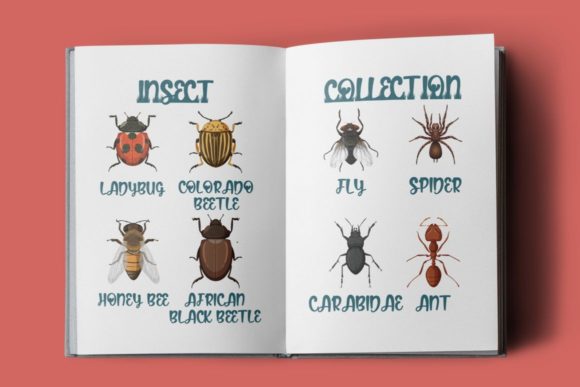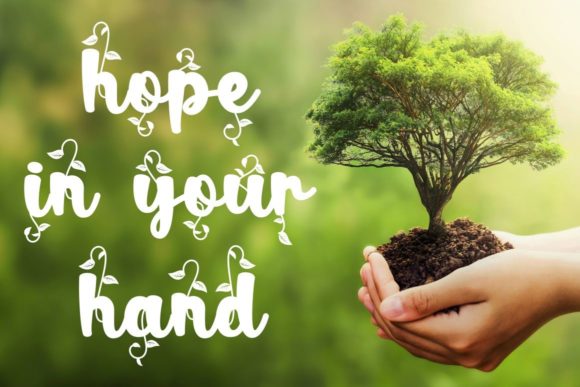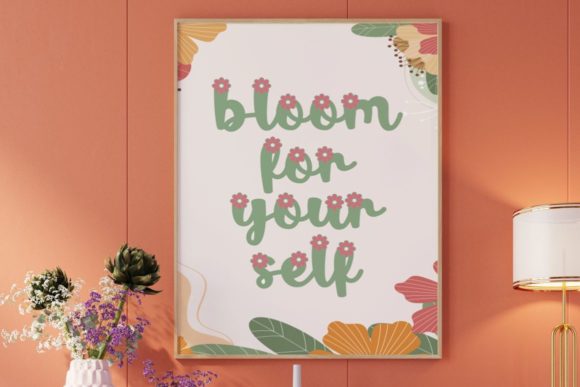
Introducing Fresh Spring Font: Elevate Your Designs with a Trendy and Chic Display Font
As the seasons change and spring arrives, it’s the perfect time to refresh your design library with a font that’s as vibrant and energetic as the season itself. Look no further than Fresh Spring Font, a stylish and modern display font that’s sure to become a staple in your collection. In this article, we’ll dive into the features and benefits of Fresh Spring Font, and explore how it can enhance your designs and take your creativity to the next level.
A Fresh Perspective on Display Fonts
Fresh Spring Font is a trendy and chic display font that’s designed to make a statement. Its unique and modern aesthetic is perfect for a wide range of design projects, from branding and advertising to packaging and digital media. With its clean lines, elegant curves, and sophisticated style, Fresh Spring Font is sure to capture the attention of your audience and leave a lasting impression.
One of the standout features of Fresh Spring Font is its versatility. Whether you’re designing a logo, headline, or social media graphic, this font is adaptable and easy to use. Its range of weights and styles makes it perfect for creating visual hierarchies and adding emphasis to your text, allowing you to experiment with different layouts and compositions.
Why Fresh Spring Font is a Must-Have for Designers
So, what sets Fresh Spring Font apart from other display fonts on the market? Here are just a few reasons why it’s a must-have for designers and crafters:
- Unique and Modern Aesthetic: Fresh Spring Font boasts a fresh and contemporary look that’s sure to make your designs stand out from the crowd.
- Highly Versatile: With its range of weights and styles, Fresh Spring Font can be used for a wide range of design projects, from elegant and sophisticated to bold and playful.
- Ease of Use: Fresh Spring Font is easy to read and works well in both digital and print formats, making it perfect for a variety of applications.
- Perfect for Branding and Advertising: With its eye-catching style and professional aesthetic, Fresh Spring Font is ideal for branding, advertising, and marketing materials.
How to Use Fresh Spring Font in Your Designs
Now that we’ve covered the features and benefits of Fresh Spring Font, let’s explore some practical ways to use it in your designs:
- Logos and Branding: Use Fresh Spring Font to create a unique and memorable logo that reflects your brand’s personality and style.
- Headlines and Titles: Add emphasis and visual interest to your headlines and titles with Fresh Spring Font’s bold and stylish aesthetic.
- Social Media Graphics: Use Fresh Spring Font to create eye-catching social media graphics that grab attention and drive engagement.
- Packaging and Product Design: Add a touch of elegance and sophistication to your packaging and product designs with Fresh Spring Font.
In conclusion, Fresh Spring Font is a trendy and chic display font that’s sure to become a valuable asset in your design library. With its unique and modern aesthetic, versatility, and ease of use, it’s perfect for a wide range of design projects. Whether you’re a designer, crafter, or DIY enthusiast, Fresh Spring Font is a must-have font that will help you create stunning and effective designs that capture the essence of the spring season.